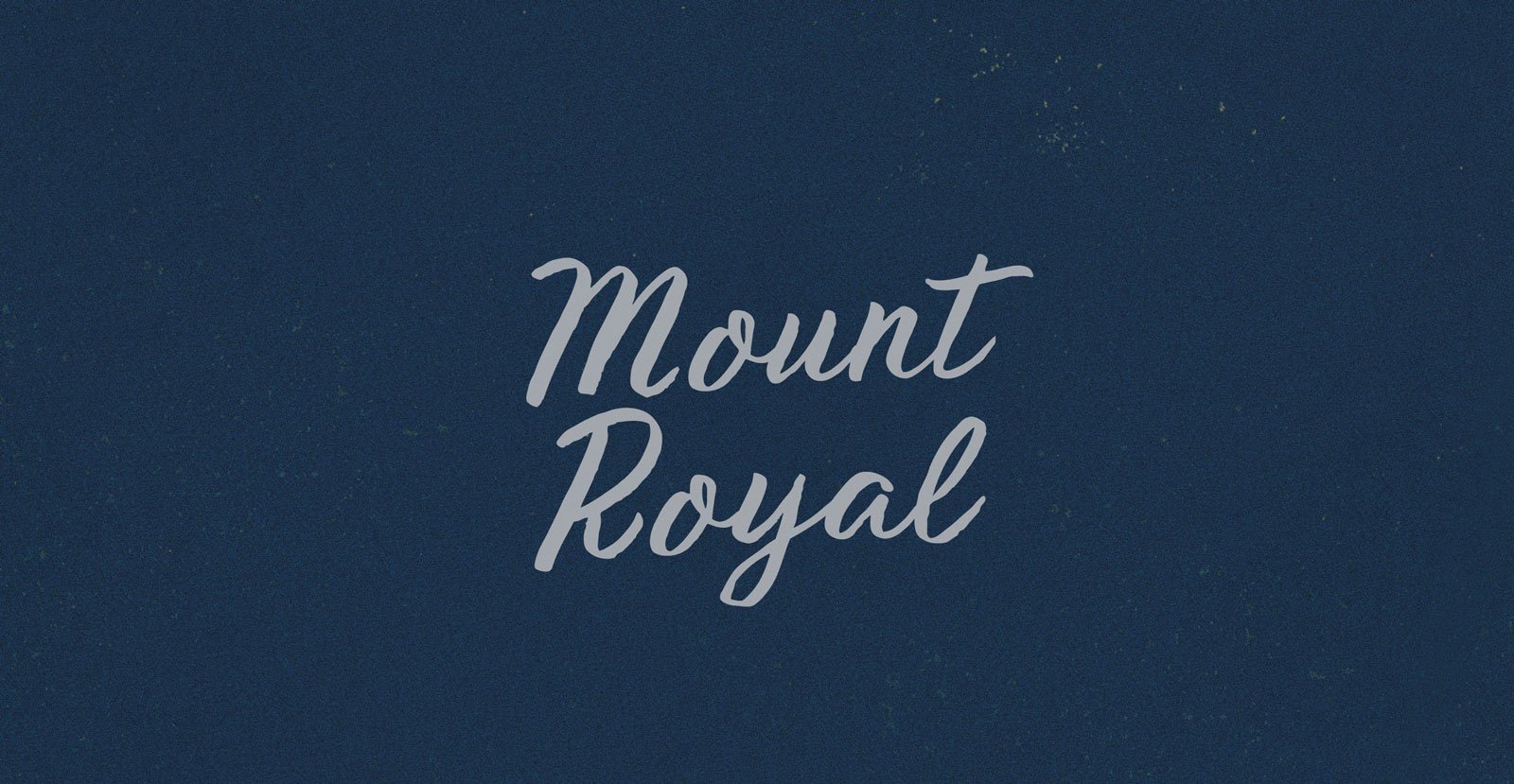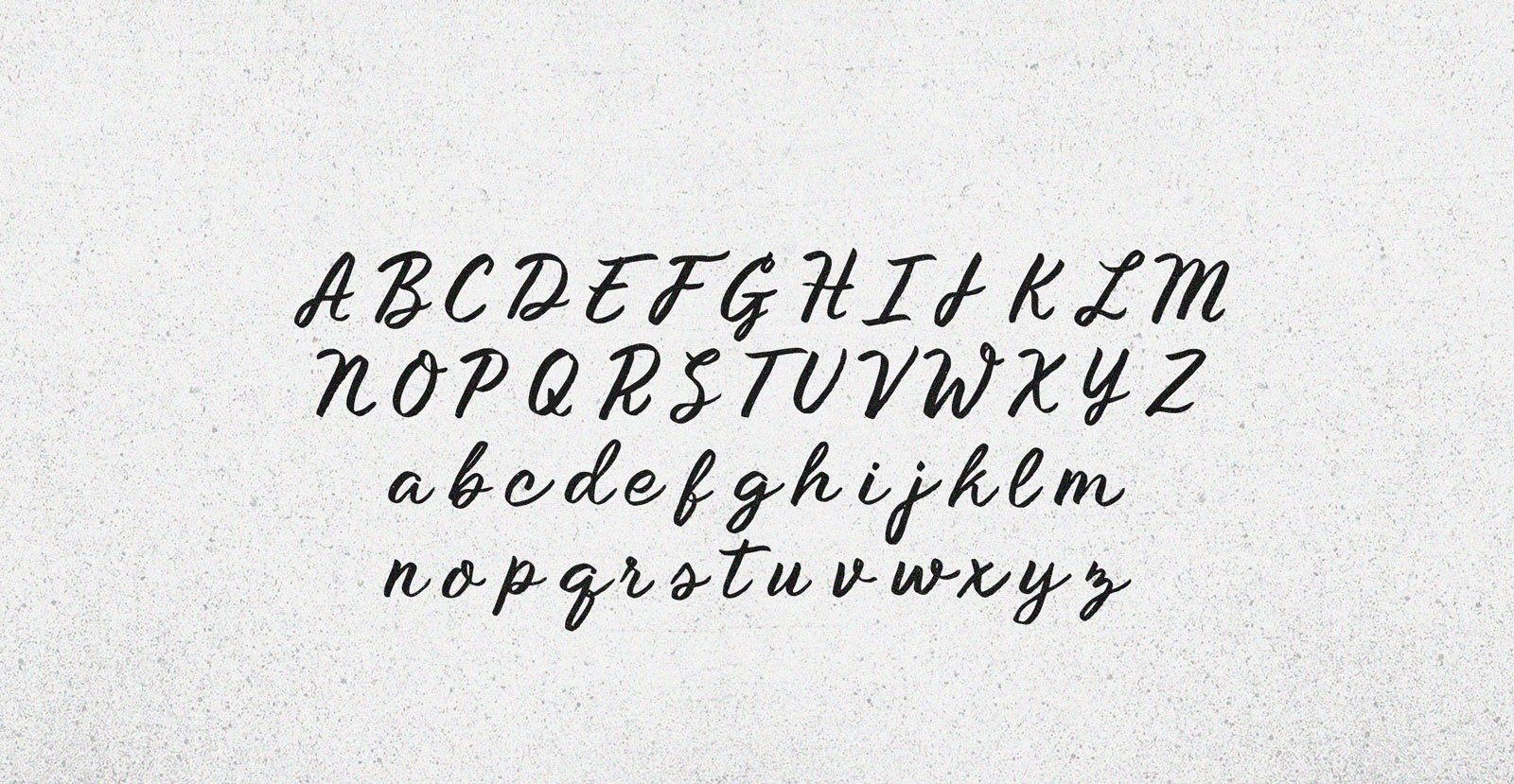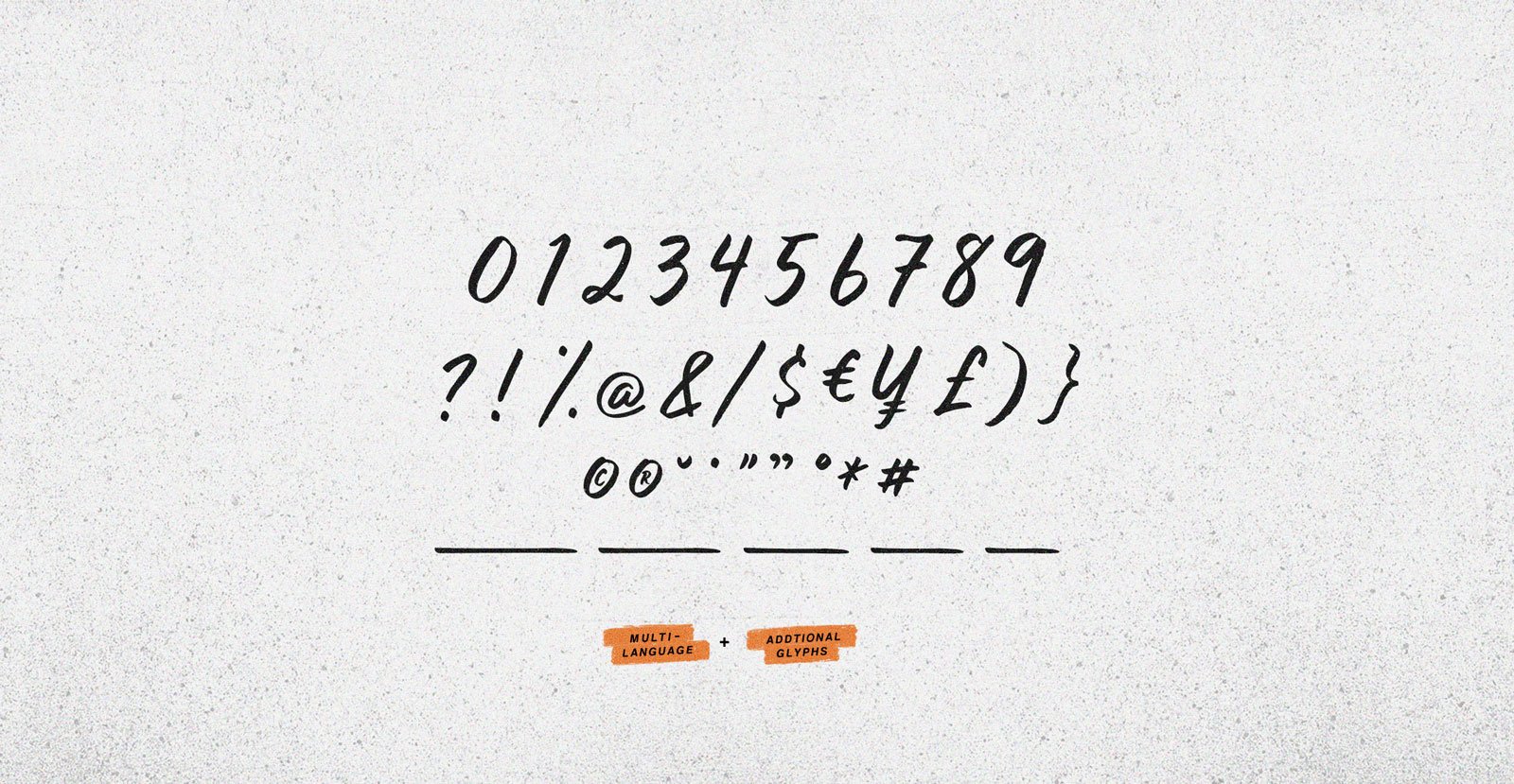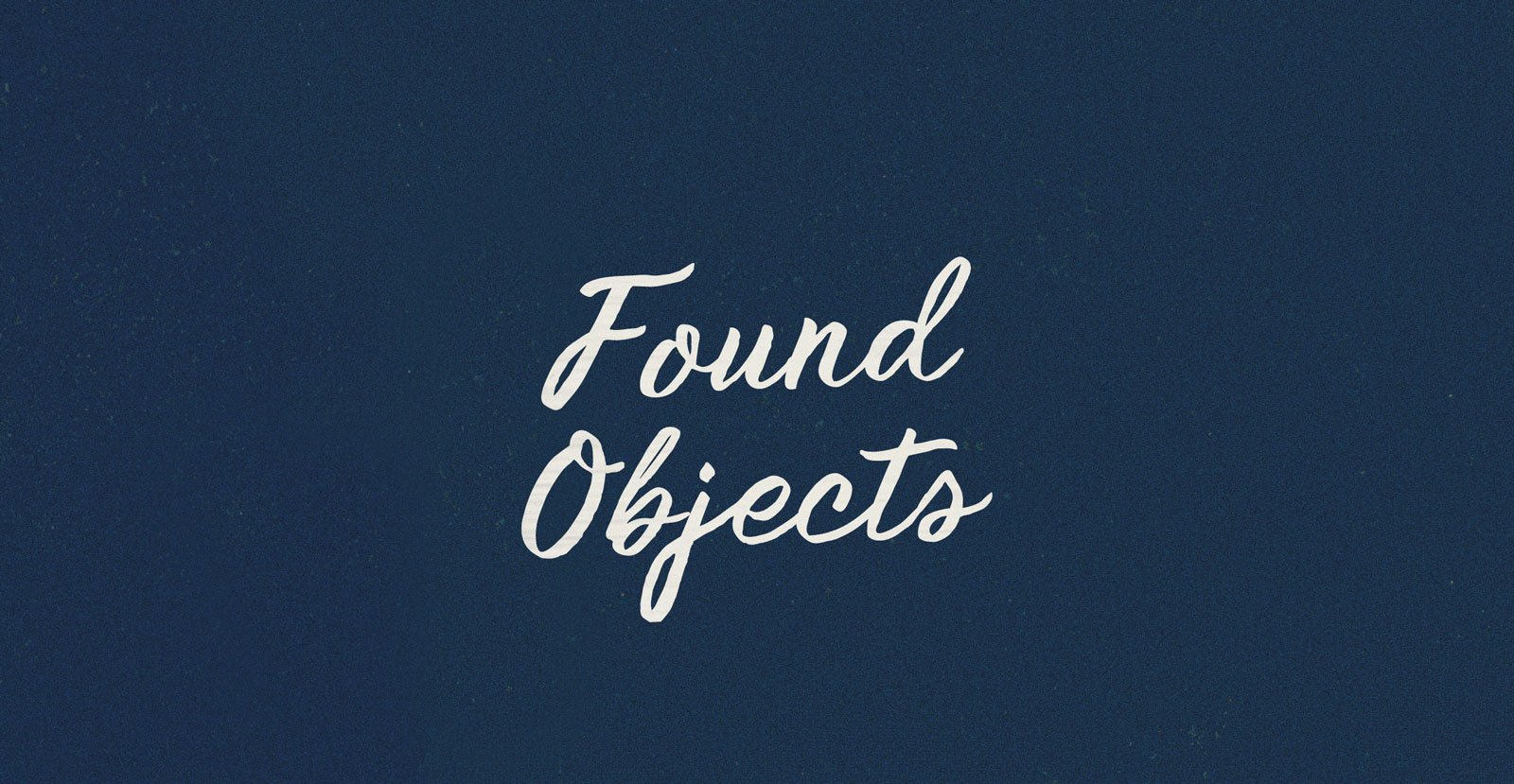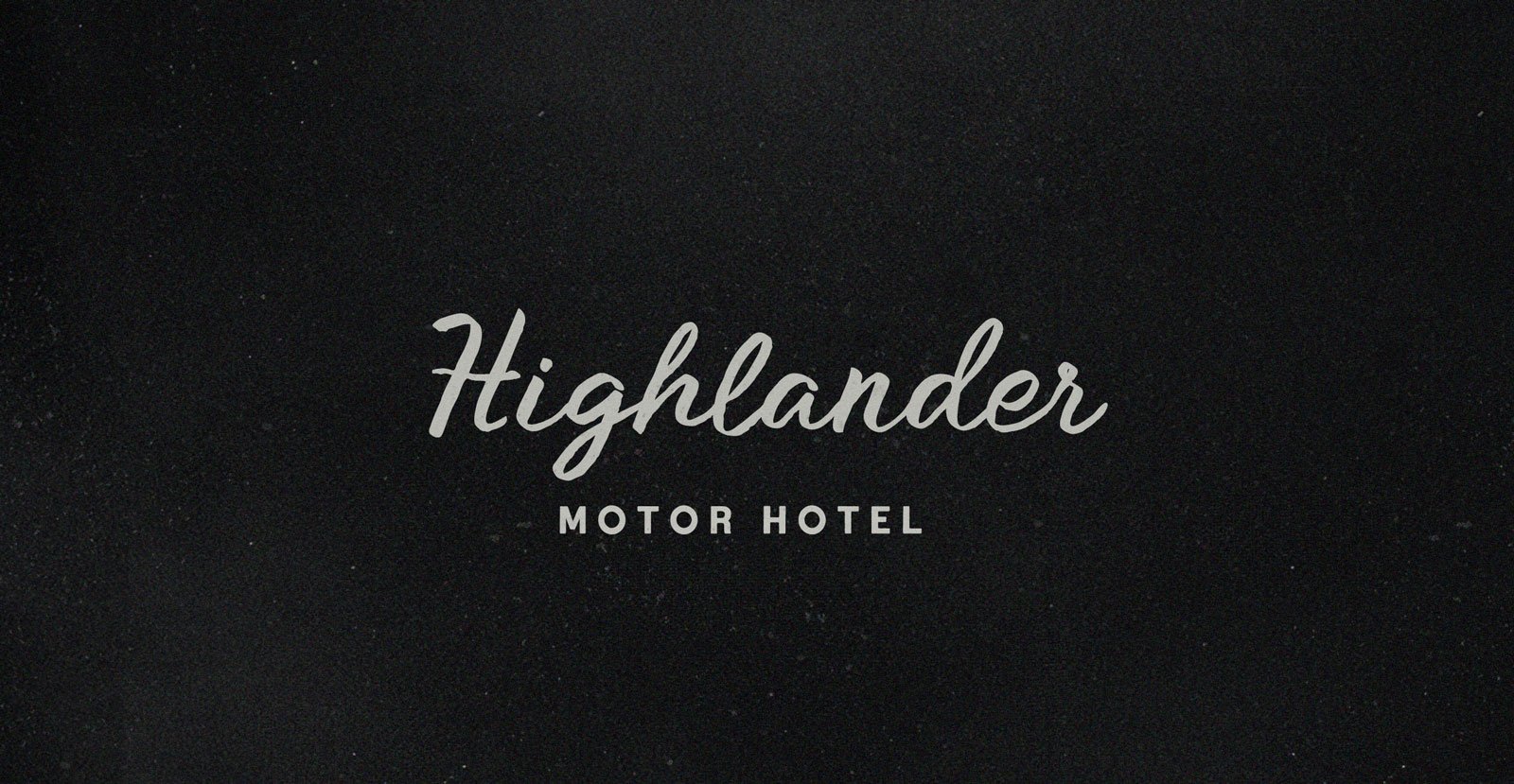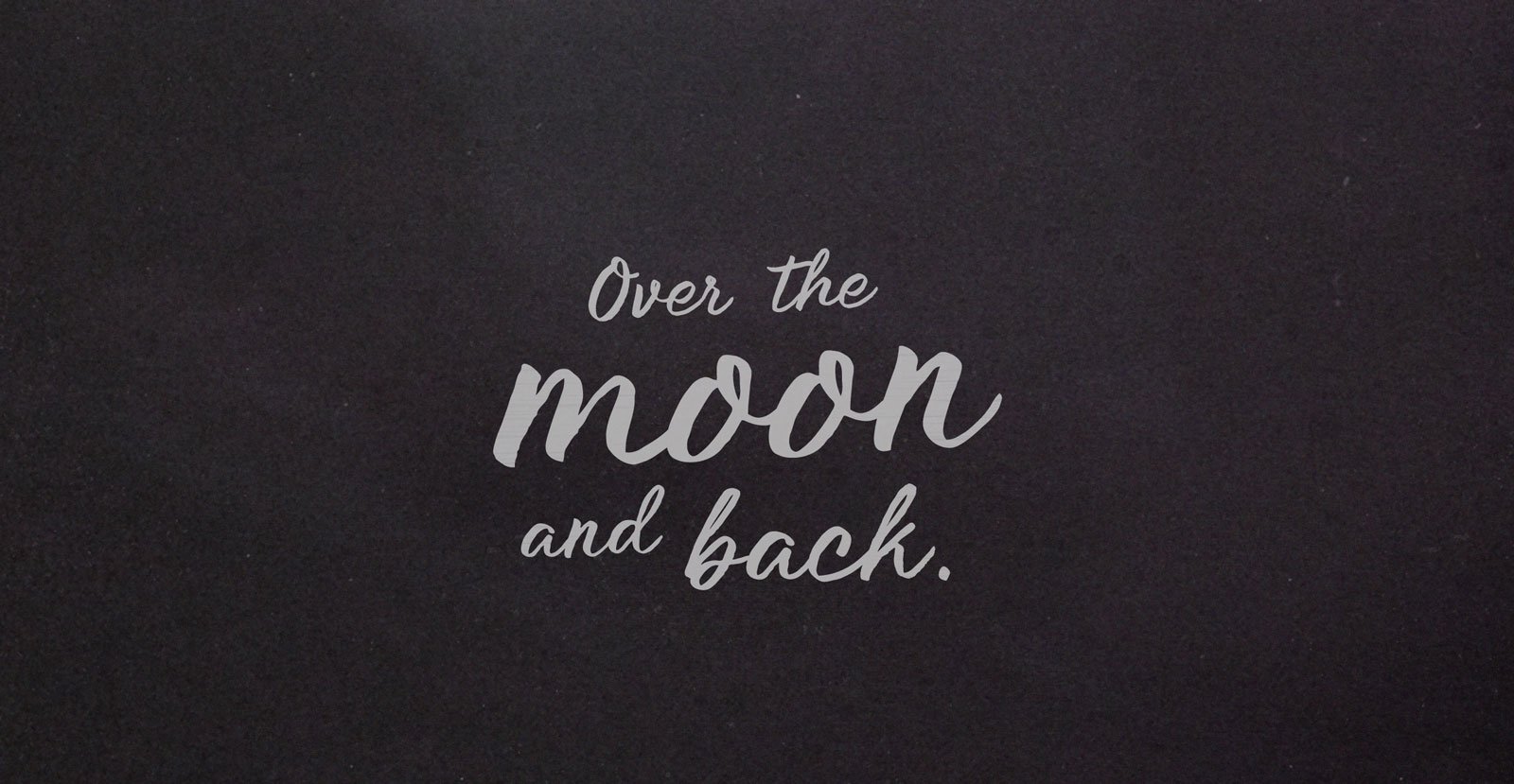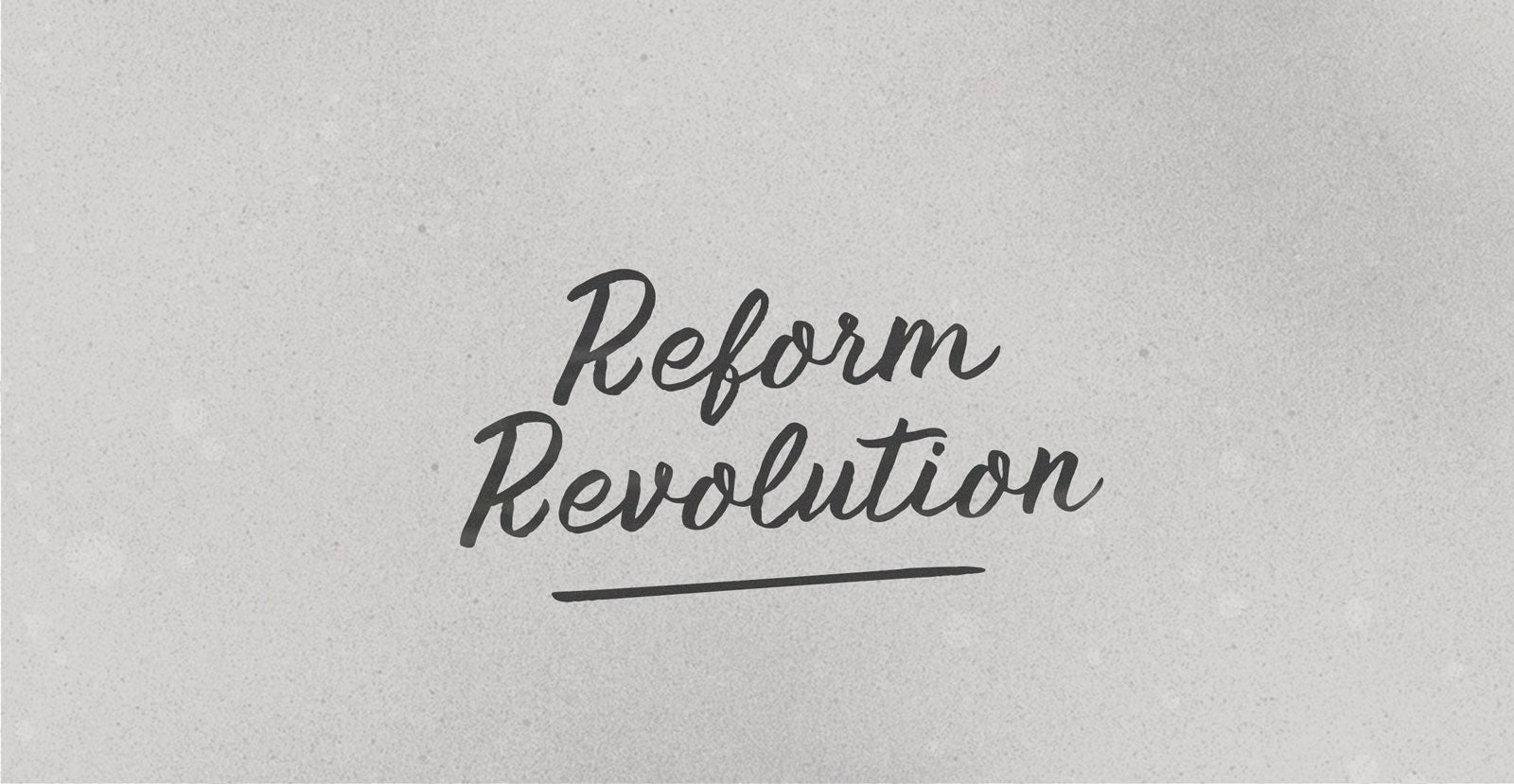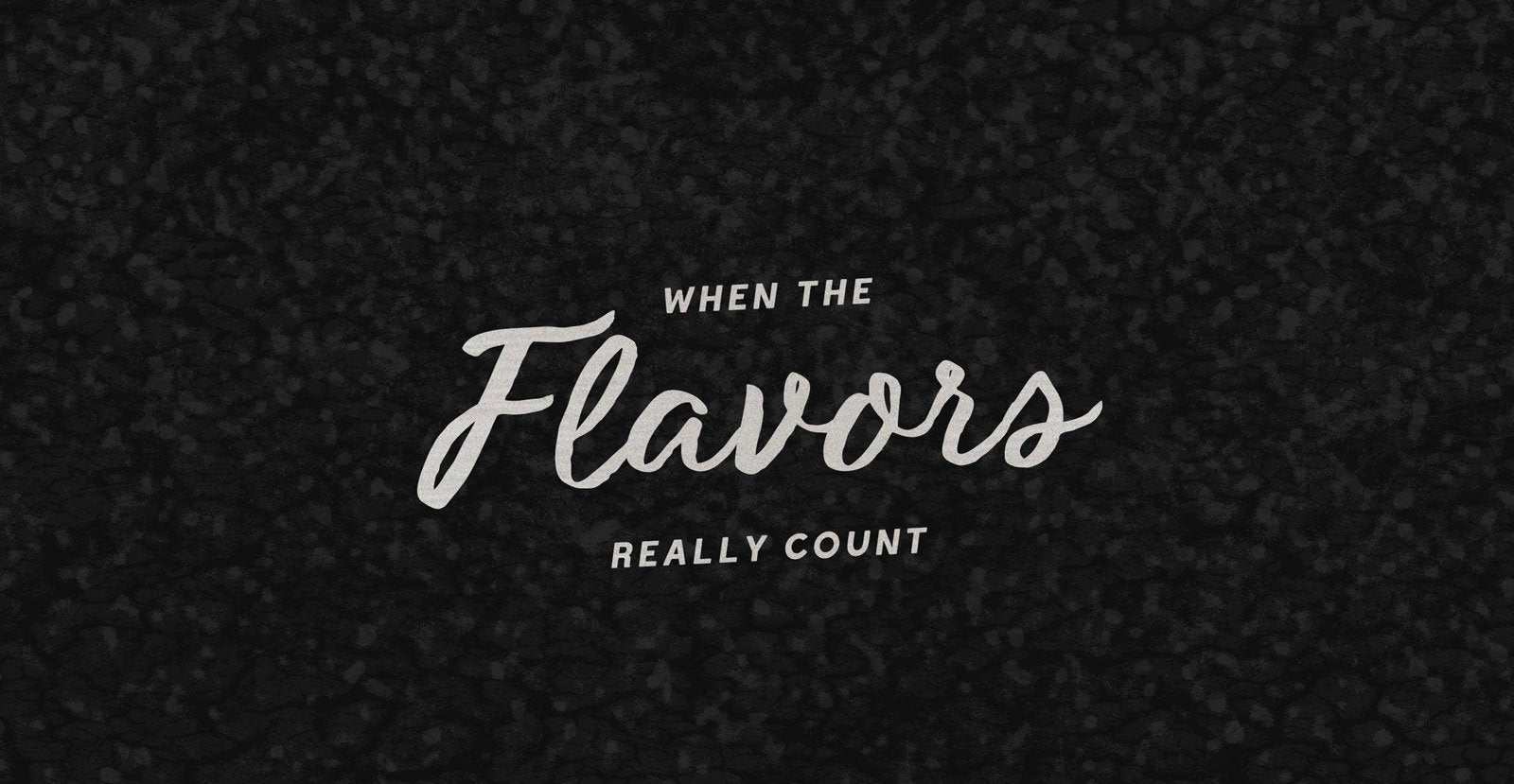
Mount Royal
Laid back like an intrusion on the couch, night after day until the rest of the world is the one that washed out. Chilled out, in the mean time, unlike yesterday's volcanic temperament, just a Mont Royal-permanent fixture, holding down the skyline.